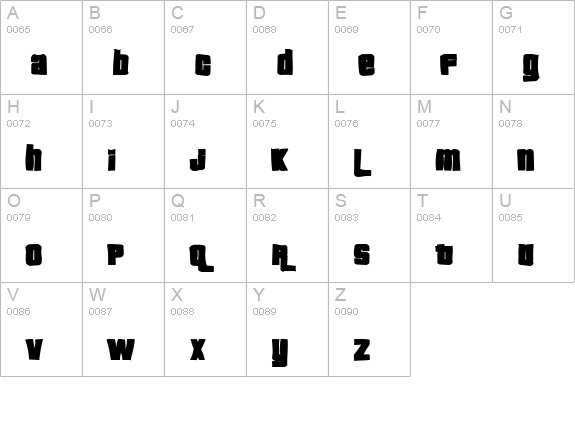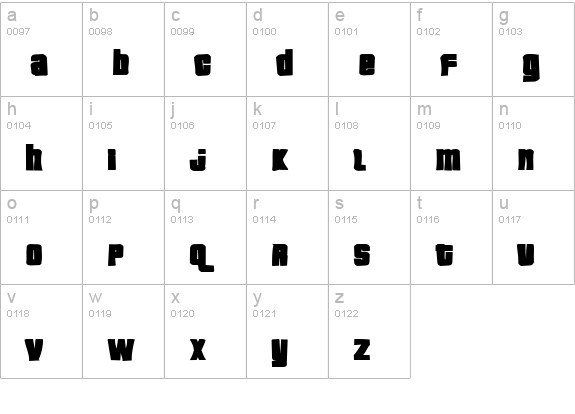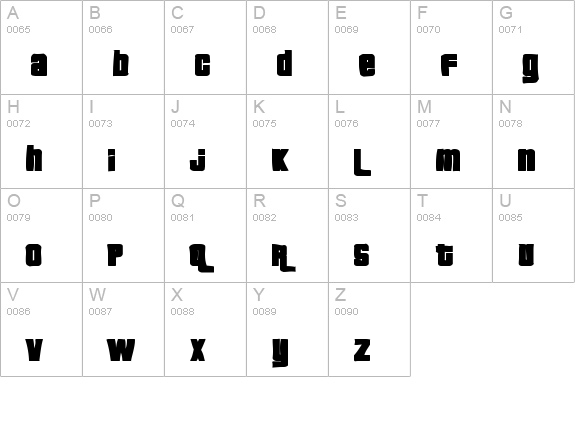
Pricedown Ink Font Details
Pricedown Ink font is a bold and eye-catching typeface that exudes a sense of energy and excitement. Its unique style makes it perfect for creating impactful designs, whether for posters, headlines, or logos. The rough texture of the ink adds a touch of authenticity and personality to any project. What sets Pricedown Ink font apart is not just its striking appearance, but also the fact that it is available for free. Yes, you read that right - you can download this impressive font for free at FontsMarket.com. So why wait? Add a touch of boldness and creativity to your designs with Pricedown Ink font today!